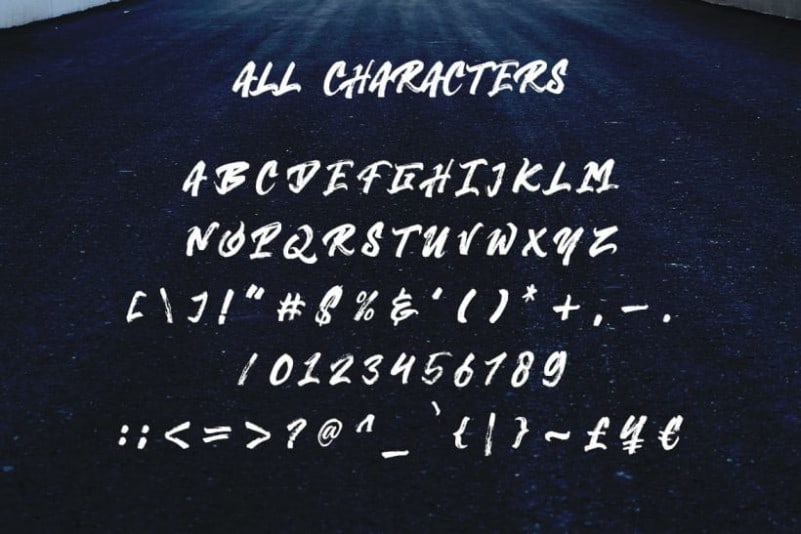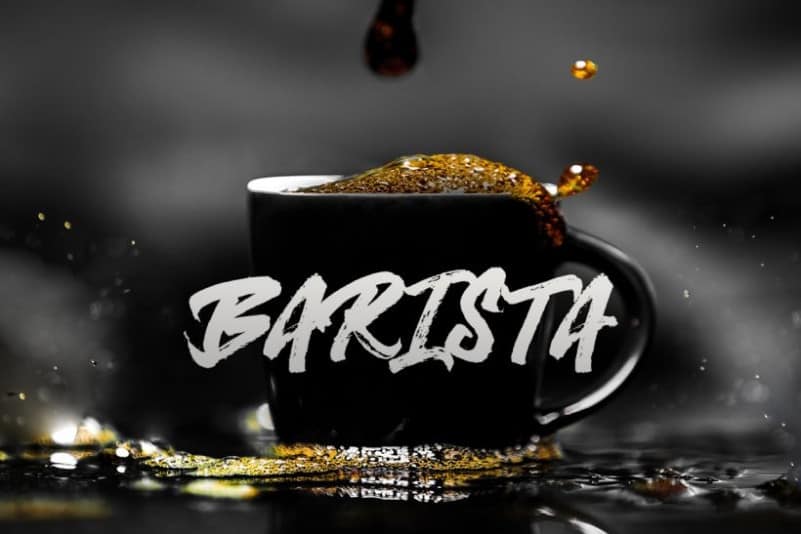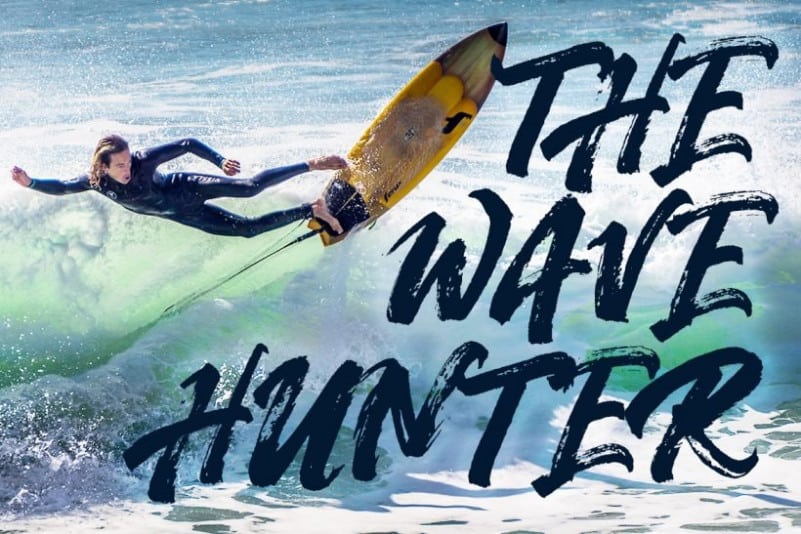
Hypetype Brush Font
Hypetype Brush Font is a carefully curated group of recent handwritten Font that pair perfectly with one another. This is a must have bundle for anyone when starting out, all fonts are high quality and can be used for any project! Made from font designer named Motokiwo. It’s hyperactive painted brush font with natural texture. It will give something cool into any design. Hypetype is good for poster, headline, etc and it comes with all caps, number, also punctuations.